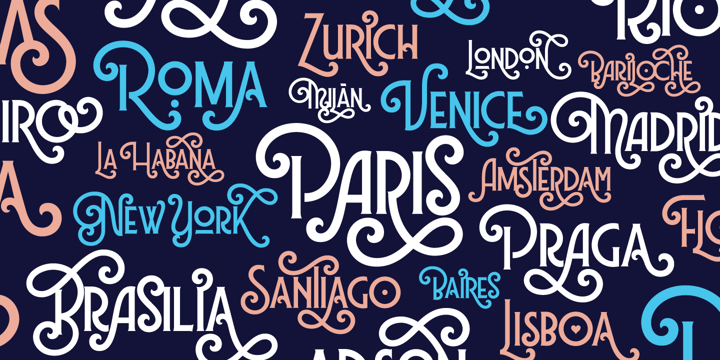
Lubaline
by Lián Types
Lubaline Font Family was designed by Maximiliano R. Sproviero and published by Lián Types. Lubaline contains 8 styles and family package options.
About Lubaline Font Family
Who haven't heard the phrase that ‘any past time was better’?. Although I sometimes find this phrase a little too pessimistic (because I try to think that the best is yet to come), it may be true regarding my passion, typography. I'm too young (29) unfortunately, and this means I did not have the pleasure of being contemporary with maybe the man who has influenced my work the most (1). The man that showed that letters are more than just letters to be read. Herb Lubalin (1918-1981), also called sometimes as ‘the rule basher’ (2), smashed the taboos and sacred rules of type design and gave it personality. He rejected the functionalist philosophy of europeans in favor of an eclectic and exuberant style. To him, letters were not merely vessels of form, they were objects of meaning. (3). Nowadays, when looking at his portfolio, who dares to deny that the term ‘typography’ and ‘beauty’ may go hand-in-hand without any problem? Ed Benguiat, one of Herb’s partners, still likes making jokes with the phrase “screw legibility, type should be beautiful” and what I understand of this is not to forget the rules, but to know and break them carefully. In an era of pure eclecticism, we, the lovers of flourishes and swashes, can't do nothing but admire all the legacy that Lubalin, this wonderful type-guru, left. My font Lubaline read as “the line of Lubalin” is my humble tribute to him. Those who know his work, may see the influences easily like in his ‘Beards’ (1976) and ‘The Sound of Music’ (1965) posters; the art-deco forms in many of his amazing logos and practically in all his creations where letters seem to be alive just like you and me. I really hope that the future finds me still learning more and more about type-design and letterforms, and like him, always willing to make innovations in my field: Because letters are not just letters to be read. NOTES (1) These are some of my fonts in which some of Lubalin’s influences can be seen (in order of creation):
Reina, Aire, Erotica, String, Beatle, Heroe, Selfie, Model, Seventies, and many others that are still in progress. (2) (3) Steven Heller.
Herb Lubalin: Rule Basher.
U&lc (1998)